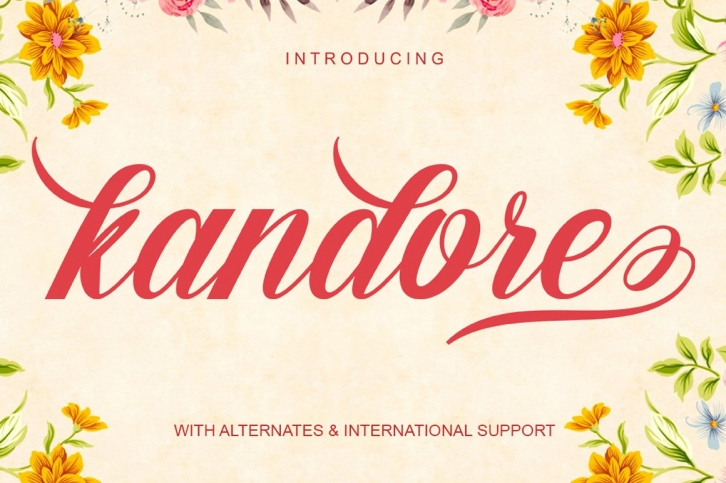
kandore is a gorgeous font that was realeased on March 19, 2021. The font can be used in many style contexts and design environments. Perfect for invitations, magazines, websites, logos, and more! It was designed by Afnent Studio and the file size is 13.93 MB. Thanks for checking out this font!